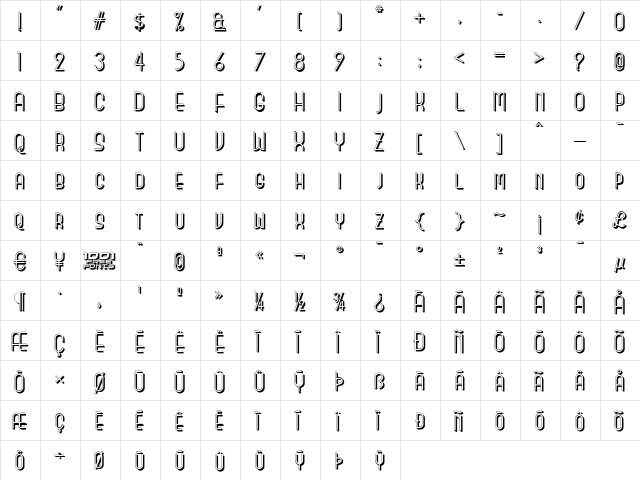
Monicas Salon Shadow NF Regular
Design Context for Monicas Salon Shadow NF Typeface
Monicas Salon Shadow NF brings ornamental detail and strong personality to headlines and identities, where visual impact matters more than quiet functionality.
Font Pairing: Pair with a clean neutral sans-serif for body copy to let Monicas Salon Shadow NF's character lead without overwhelming the composition.
Pro Tip: Treat Monicas Salon Shadow NF as the centrepiece of your typographic hierarchy. One strong heading set in a decorative face can carry an entire layout.